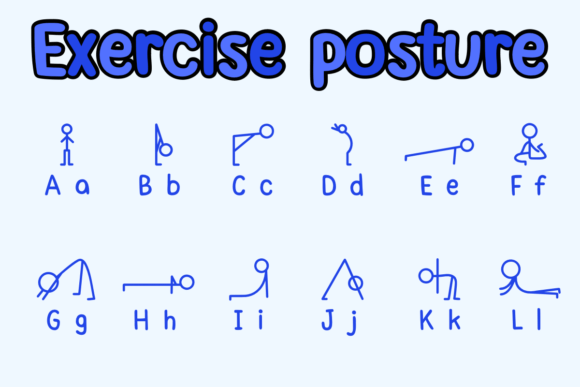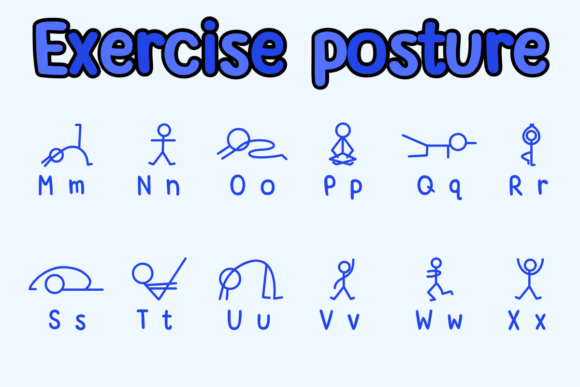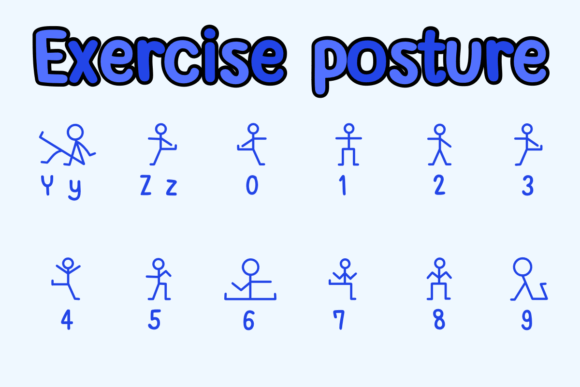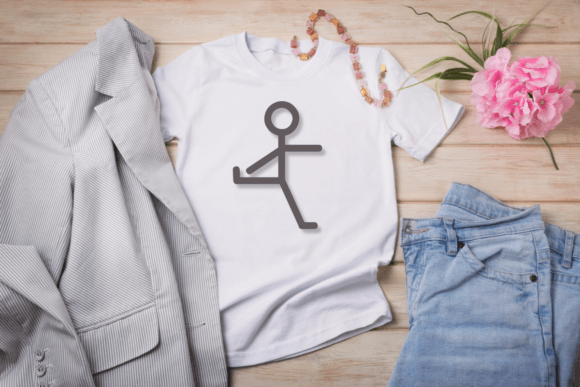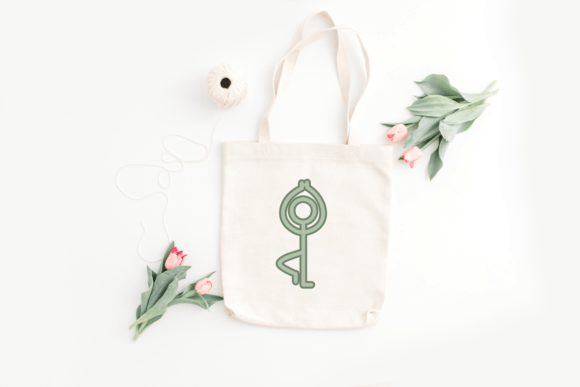
Introduction to Exercise Posture Font Font
Fonts play a crucial role in design, and the Exercise Posture Font font is a typeface that brings both character and versatility to any project. Whether you’re working on a branding project, a website, or a print design, the Exercise Posture Font font offers a unique style that can elevate your work.
Exercise posture is a dingbats font with theme with a sketch style.
This font can enhance your creative projects such as wedding invitations, DIY, crafts, decorations, logos, and many other creative ideas .
Key Features of Exercise Posture Font Font
Why Choose Exercise Posture Font Font?
The Exercise Posture Font font is more than just a typeface – it’s a design tool that helps you communicate your message with style and clarity. Its unique character set and versatile design make it suitable for a wide range of applications, from elegant invitations to bold headlines.
With its carefully crafted letterforms and balanced proportions, the Exercise Posture Font font ensures readability and visual appeal across all mediums.
What makes Exercise Posture Font font special?
The Exercise Posture Font font stands out with its unique design, exceptional readability, and versatility across various design applications.